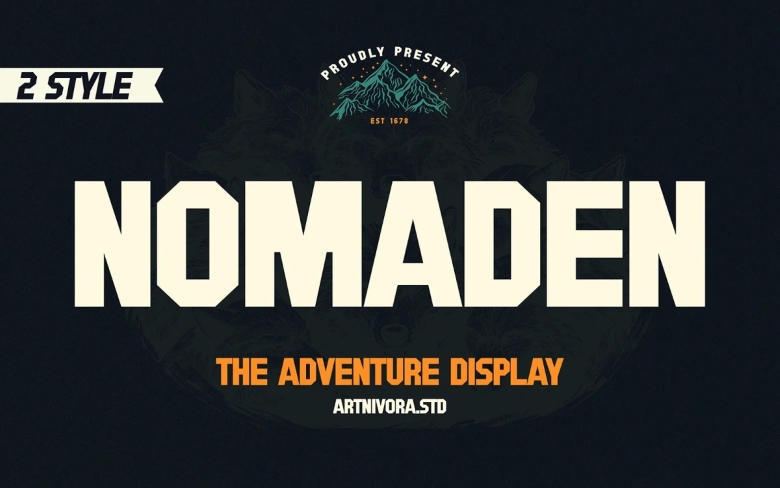
Nomaden Font
Nomaden Font, is a display font which reflects the daring and confidence of nomadic people. Regardless of the subject area, this font will become not only the addition to your fonts’ collection because it can enhance any work. The free version includes all letters in upper and lower case as well as a few other characters included.
Nomaden Display Font